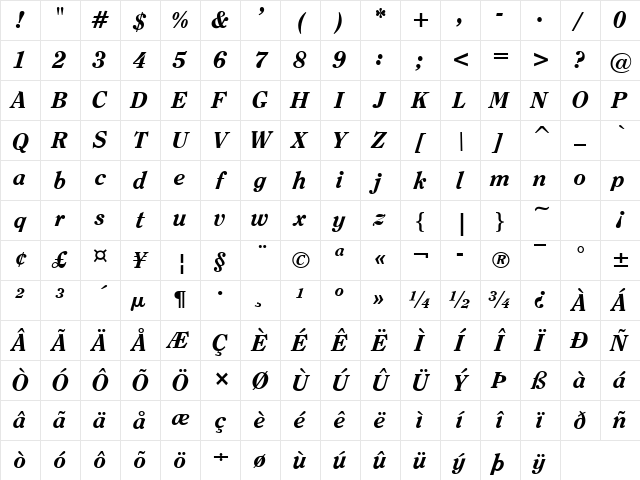
Oxford Bold Italic
Oxford Family
Design Context for Oxford
Oxford is a composed and adaptable typeface that performs quietly and consistently across a wide range of design contexts. The slanted form adds forward momentum and visual energy. Its bold stroke weight gives it real presence on the page.
Pro Tip: Use Oxford for emphasis, pull quotes, and subheadings where its slanted energy can add rhythm to the layout.